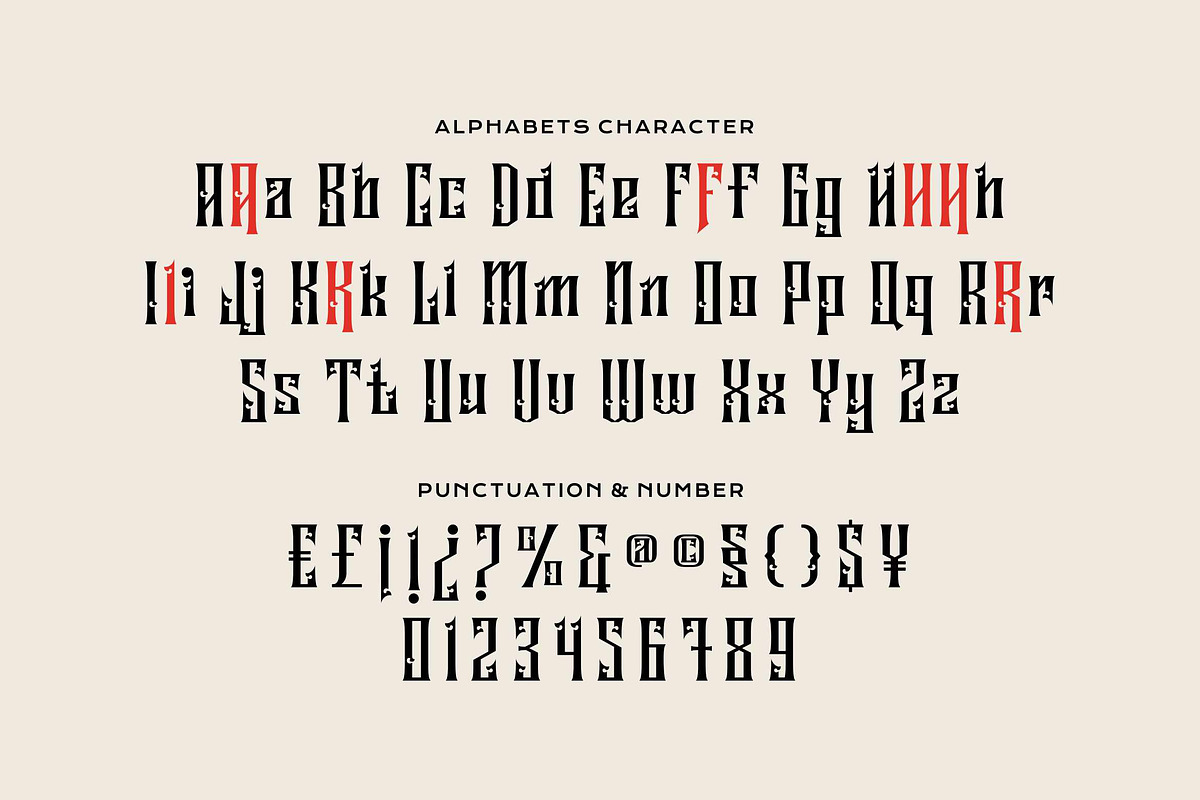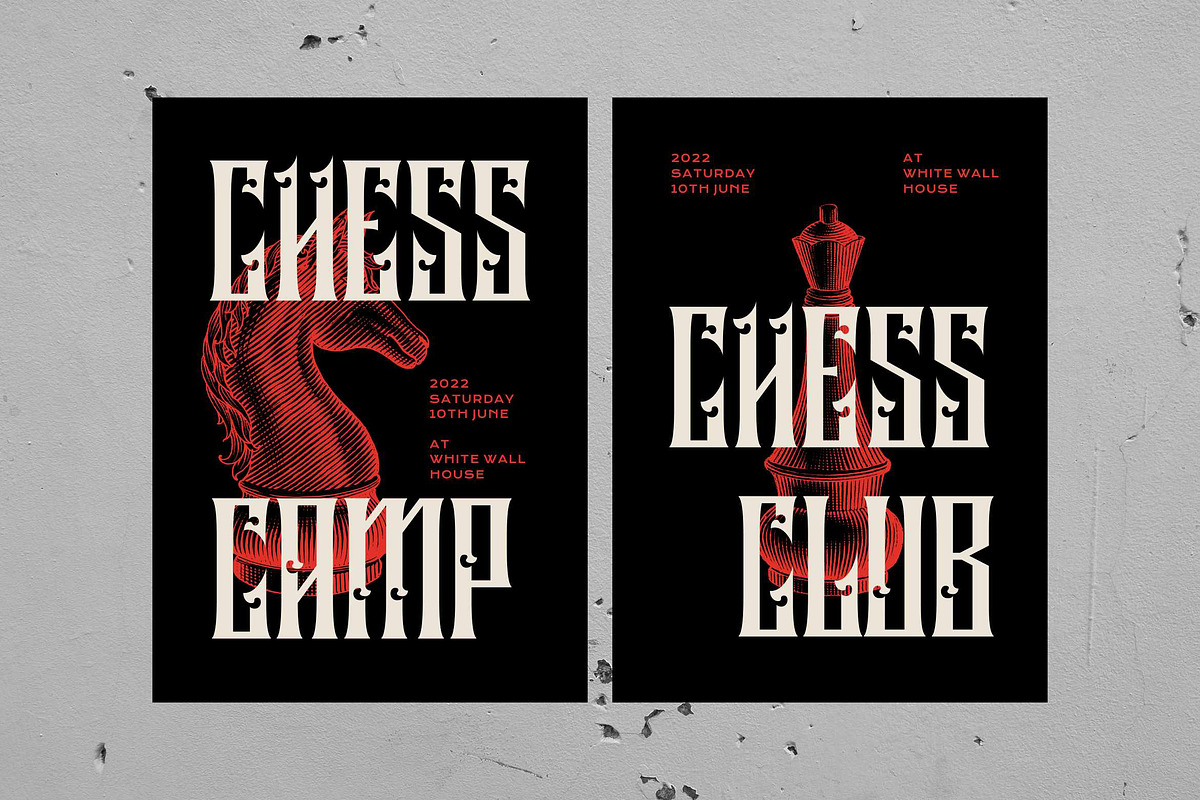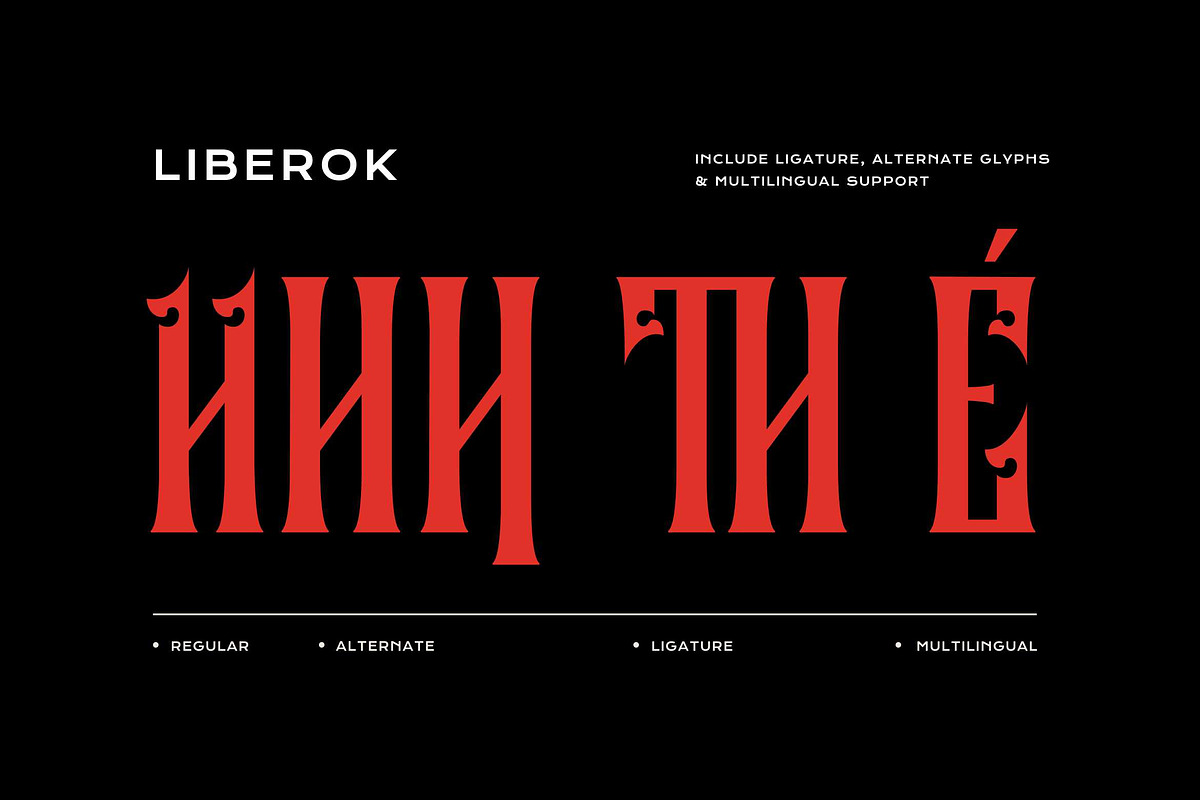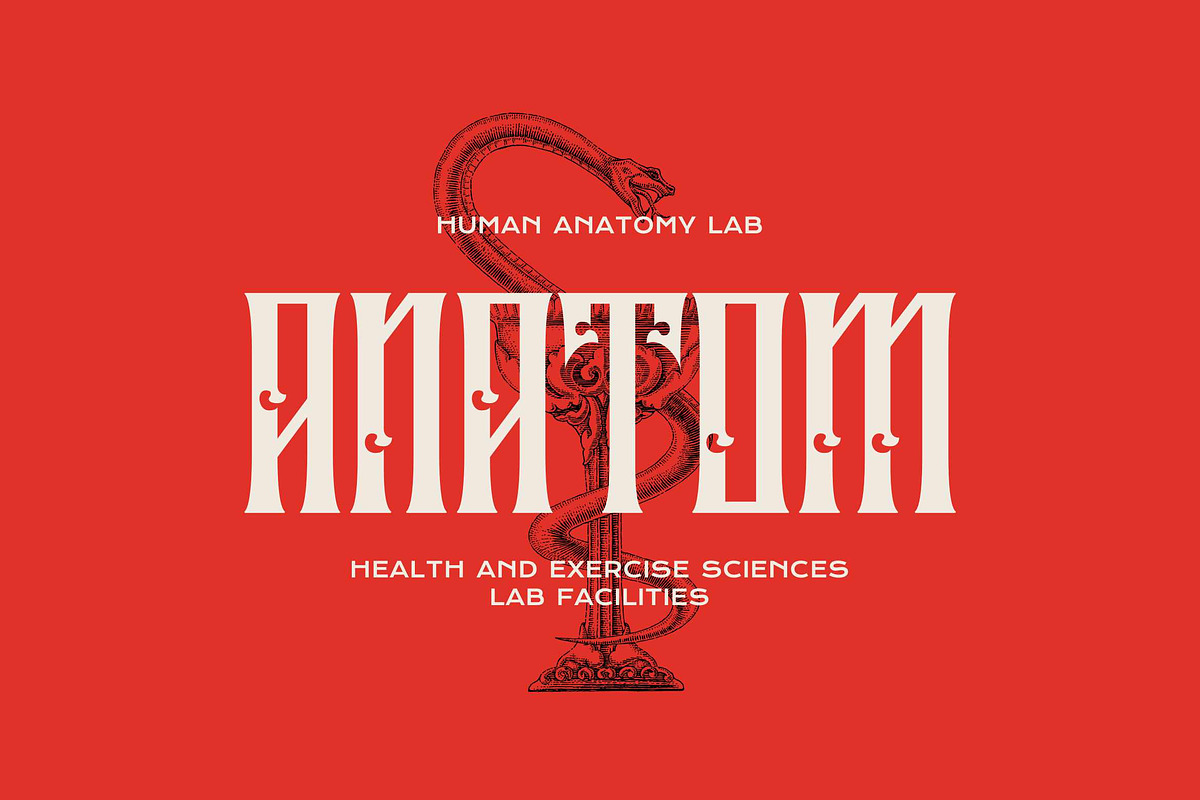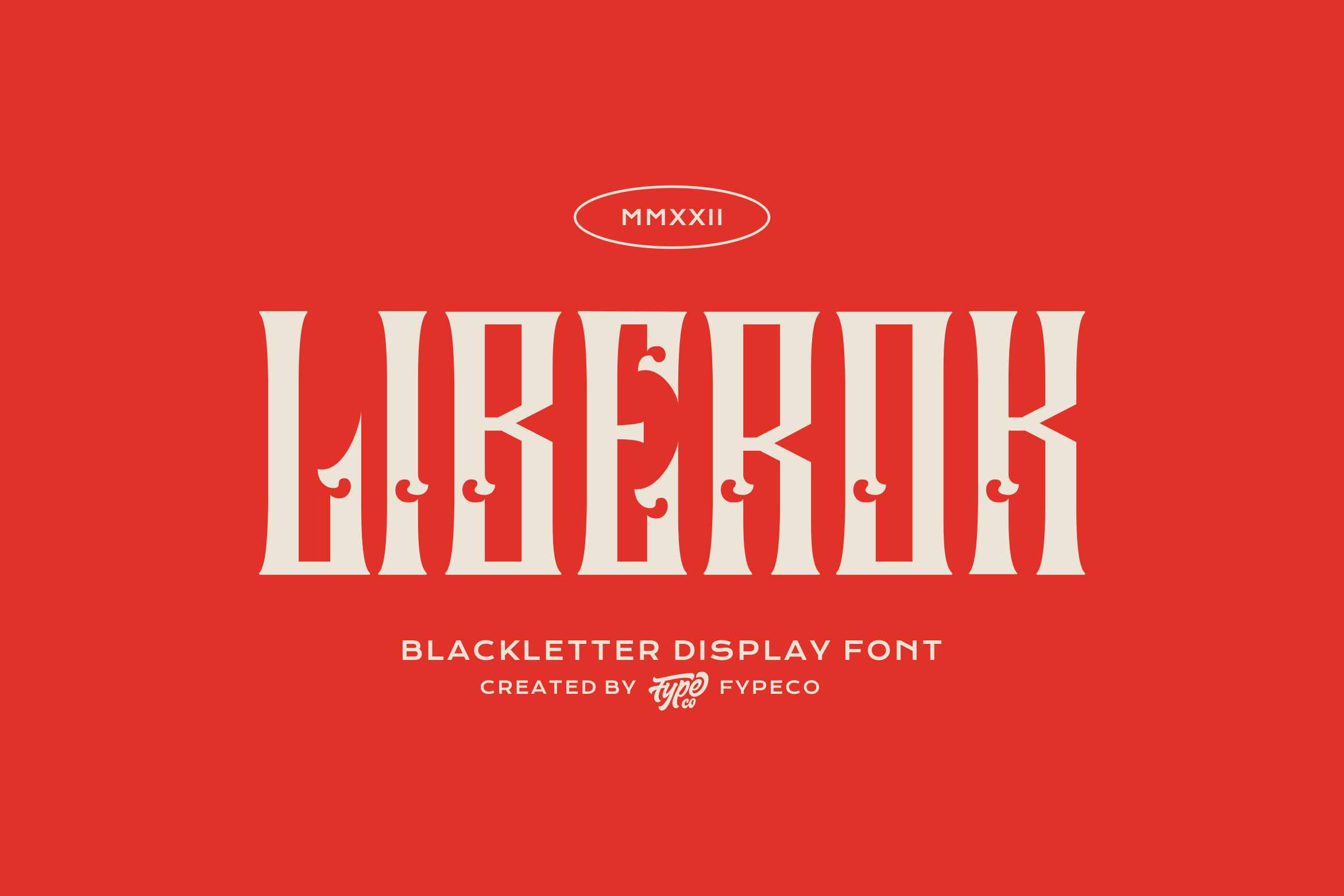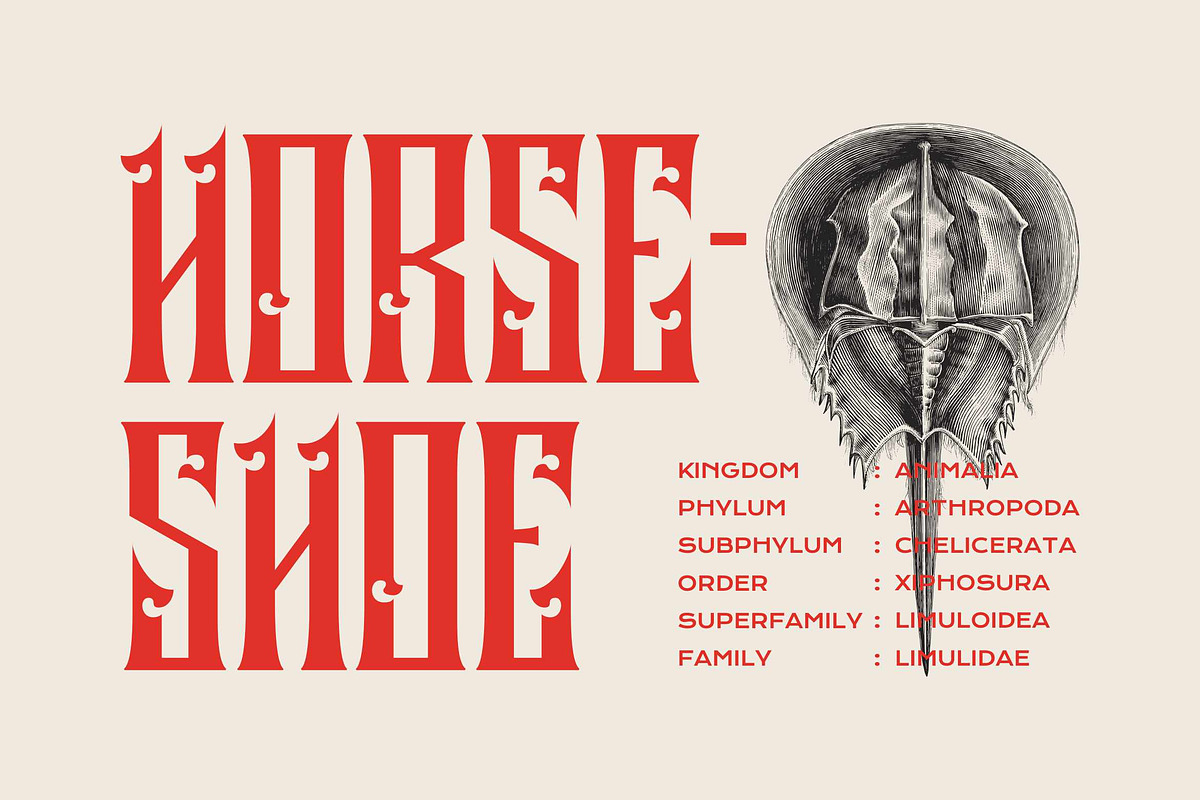
Liberok-Blackletter Display Font
Liberok is blackletter font with authentic style. This font is equipped with opentype features such as ligatures, stylistic set, and multi-language support. Liberok is perfect for use as poster designs, branding, poster, cards, tattoo, or other design needs.
- Alternatives
Fype Co.